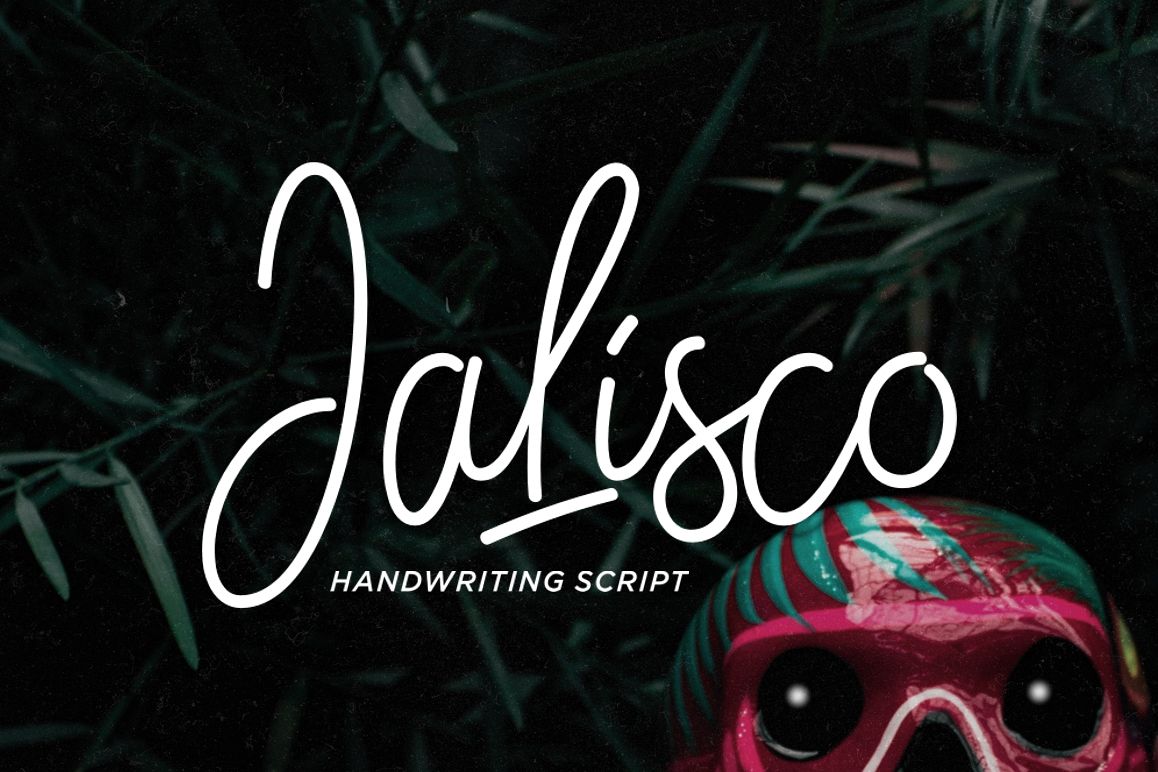
Jalisco
ntroducing our 3/3 monoline script of the year; Jalisco.
Jalisco is a thin signature styled script with handwriting feels, suits best for stationery, tumblr-quotish design, magazine cover, apparel/clothing design, hipster packaging design, logotype, etc.
This funky typeface also packed with OpenType Features such as Alternate Characters, Swashes and Ligatures. Available in PUA Encoded .OTF and .TTF.